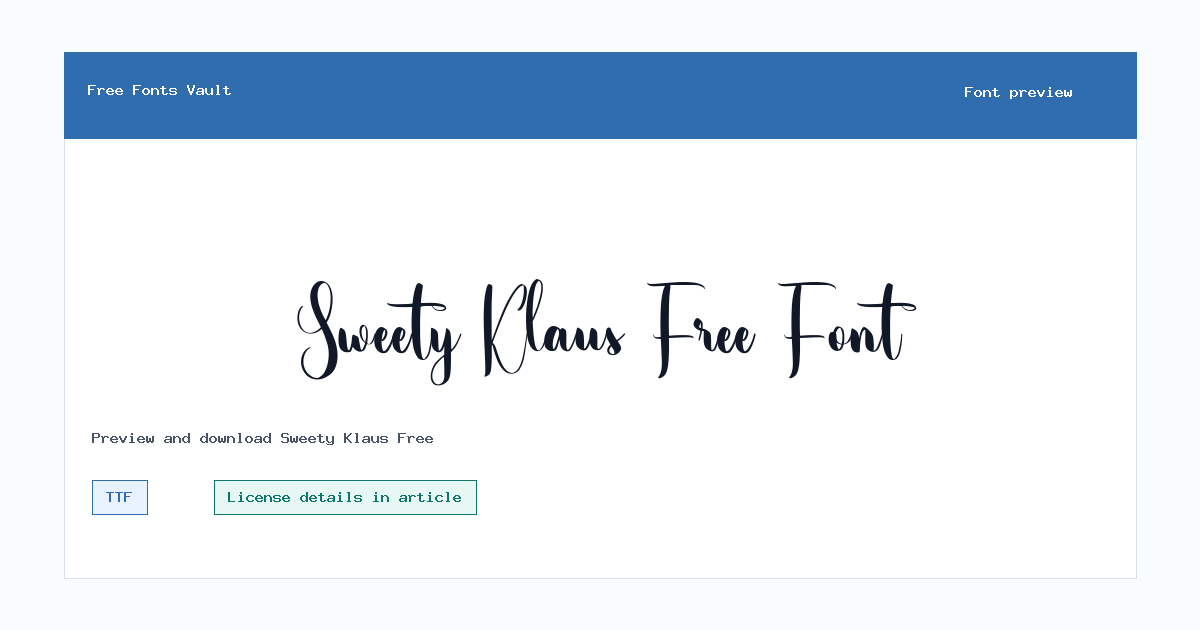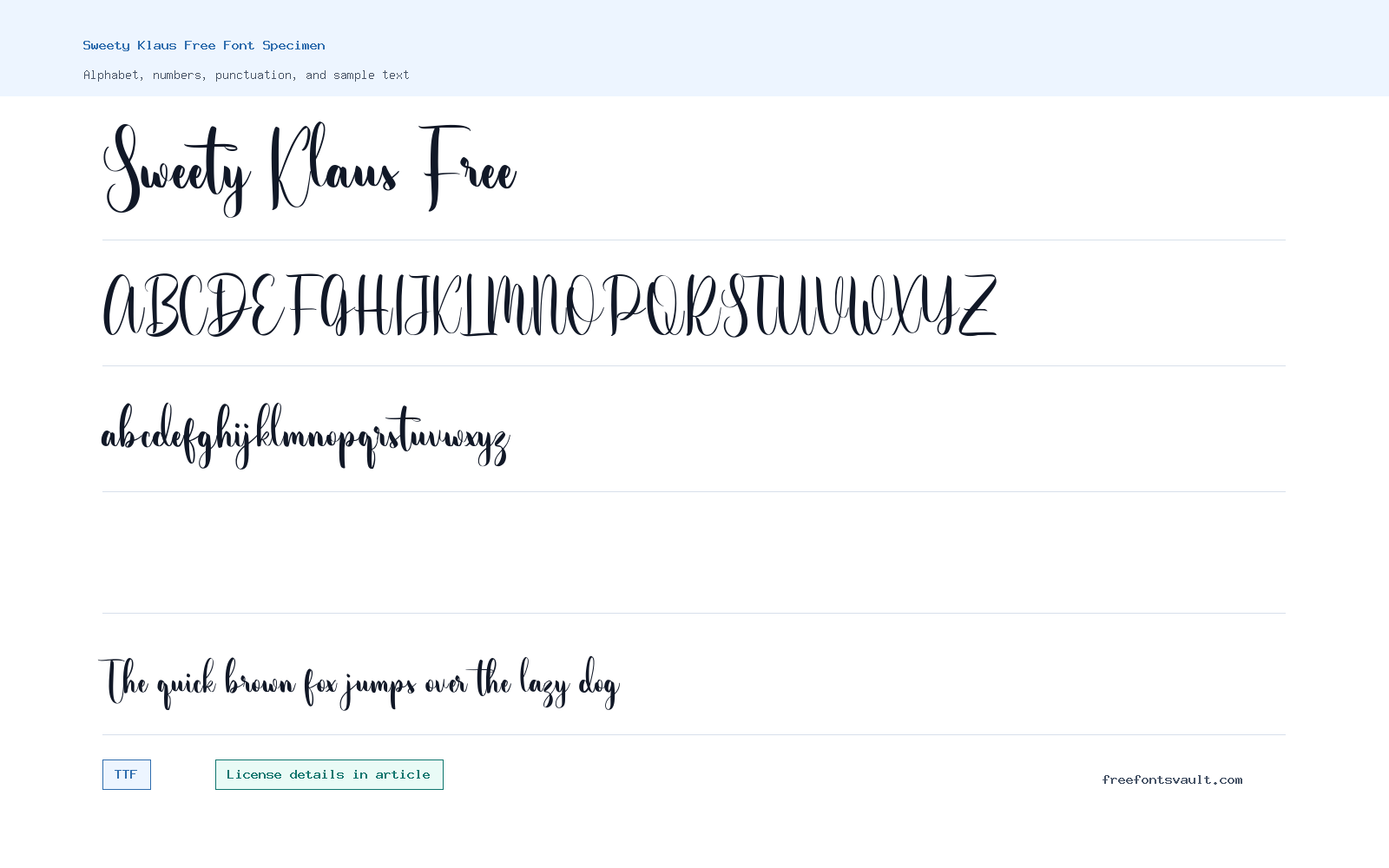
Sweety Klaus Free
- Designer MaulanaCreative
- Foundry MaulanaCreative
Sweety Klaus Free font.
Sweety Klaus Free is a friendly script font by MaulanaCreative with a soft, handwritten look suited to warm display text. It works best when you want words to feel personal, sweet, and slightly decorative rather than plain or formal.
About Sweety Klaus Free
Use Sweety Klaus Free for personal projects such as seasonal cards, invitation drafts, quote images, social media previews, gift labels, and friendly branding mockups. Because it is a decorative script, test your exact wording in the preview before downloading. Short names, headlines, and greeting-card text will usually show its style more clearly than long paragraphs or small body copy.
- Calligraphy/script style with a casual handwritten feel
- Regular weight, normal style
- Useful for short display text, cards, labels, invitations, and social graphics
- Personal greeting cards and seasonal designs
- Invitation mockups and name displays
- Social media quote graphics
- Gift tags, stickers, and labels
- Friendly logo or branding drafts for non-commercial testing
- Short titles paired with a simple sans serif or serif
Sweety Klaus Free is by MaulanaCreative / Maulana Creative.
Who designed Sweety Klaus Free?
The font is credited to MaulanaCreative / Maulana Creative.
What kind of font is Sweety Klaus Free?
It is a script calligraphy font with a casual handwritten look, best suited to display text rather than long reading text.
What should I use Sweety Klaus Free for?
Use it for personal cards, invitations, social graphics, labels, seasonal greetings, and short decorative titles.
Does Sweety Klaus support many languages?